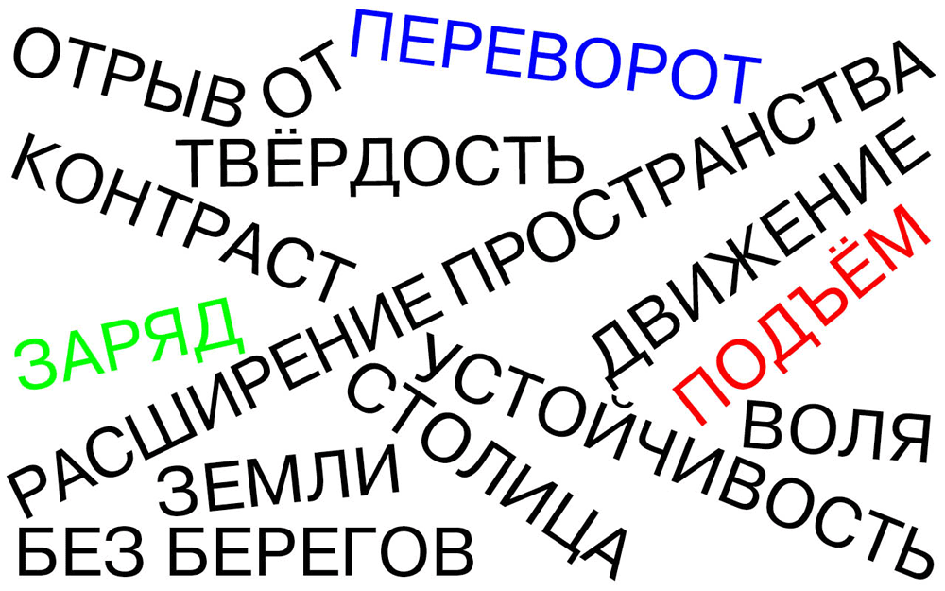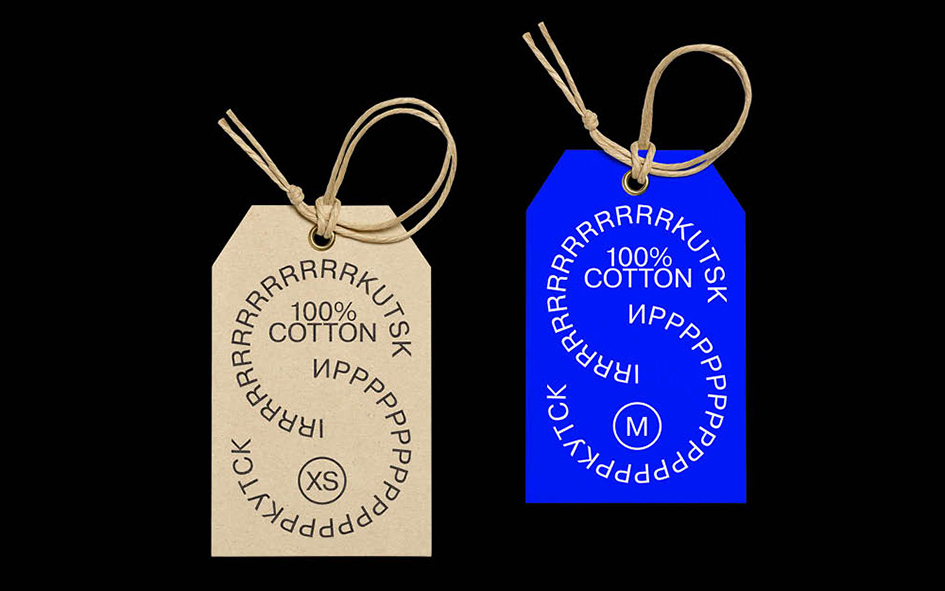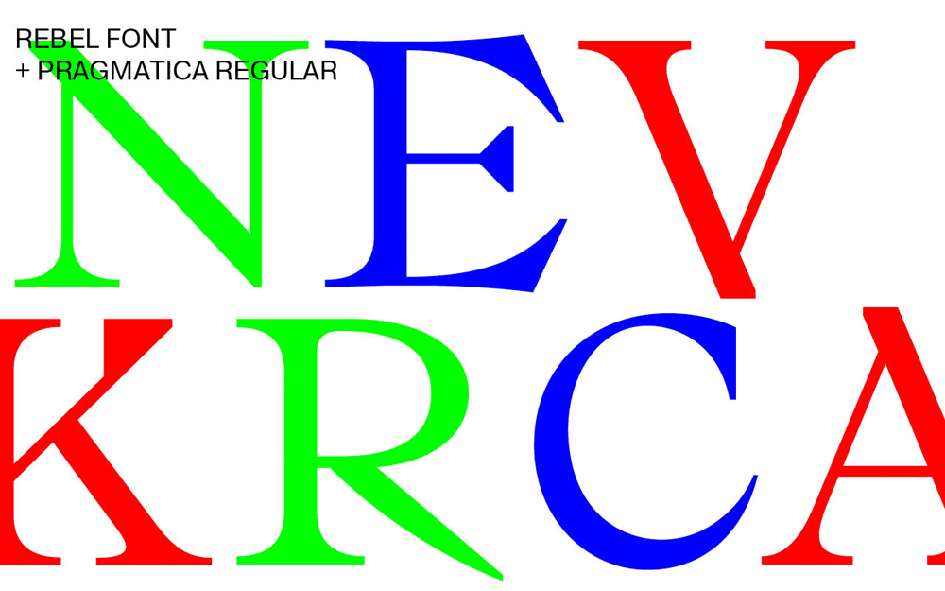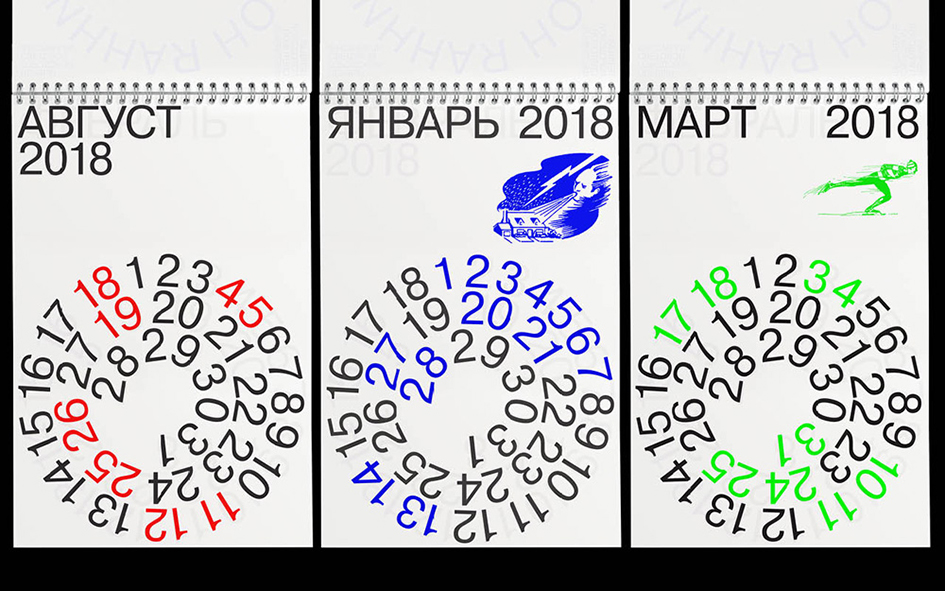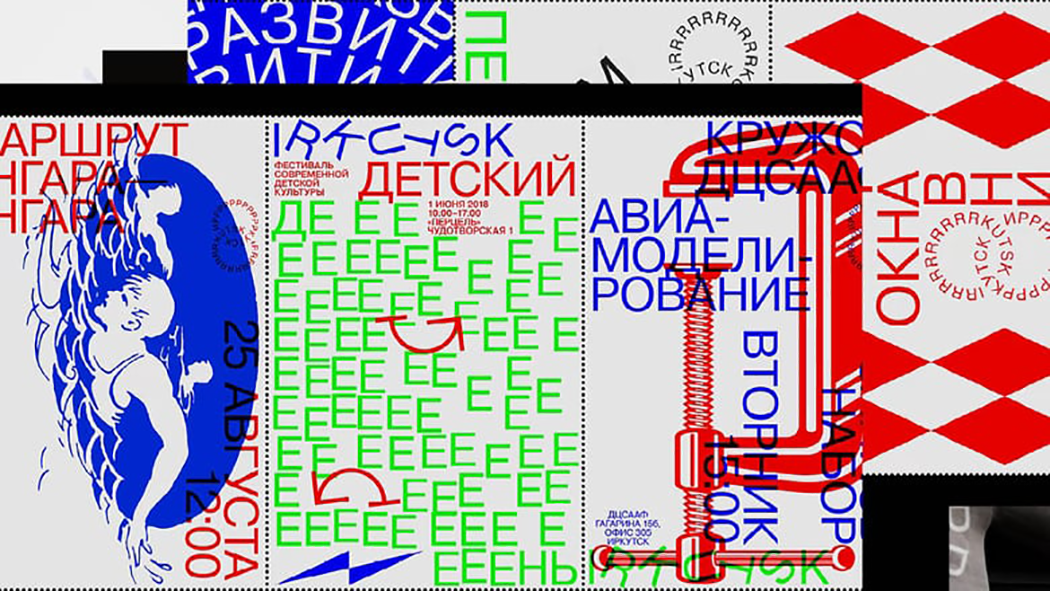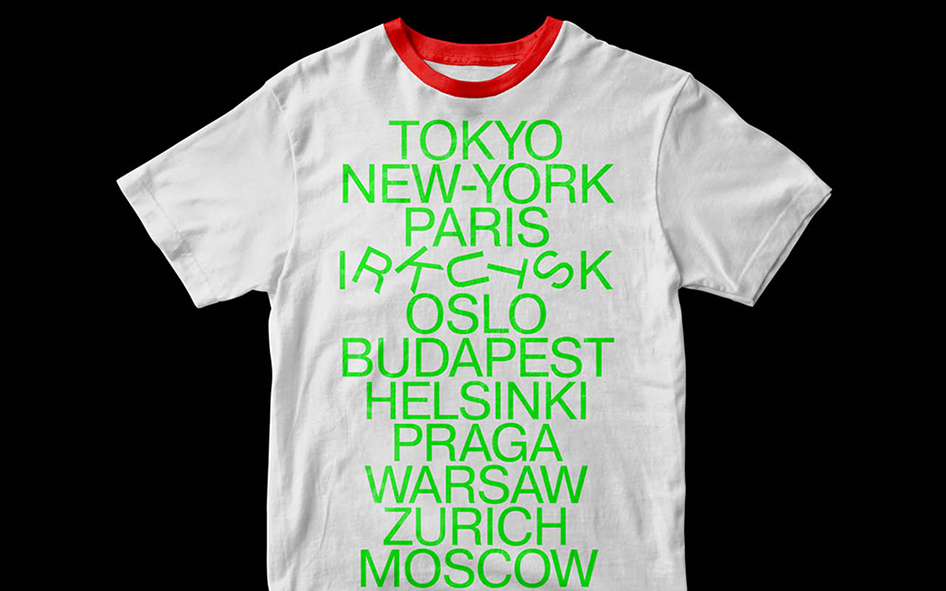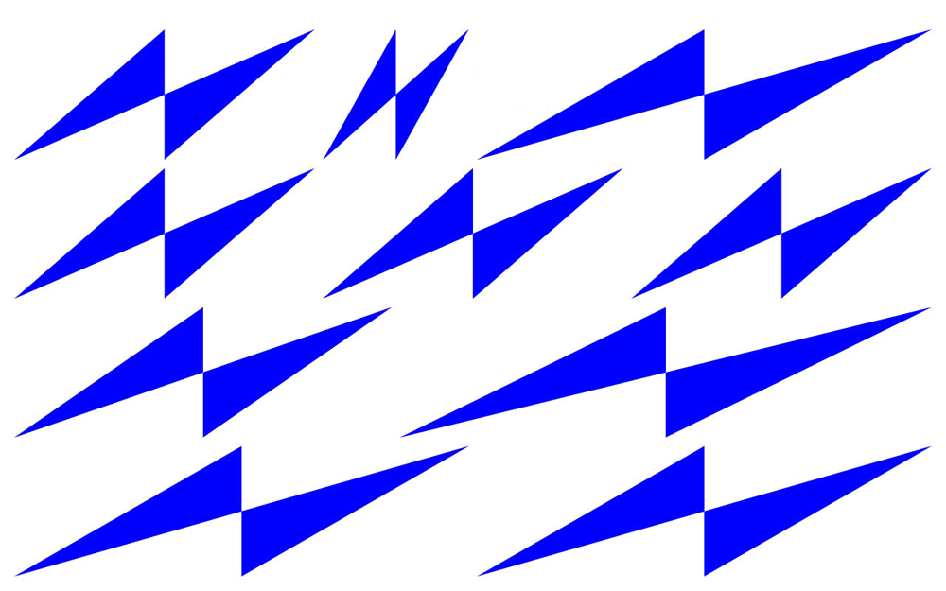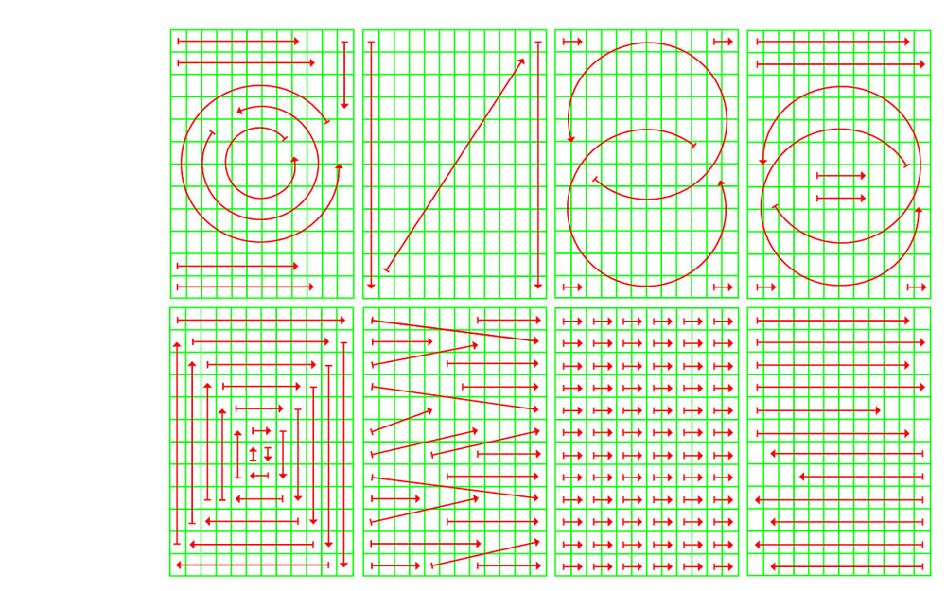
Plug into Irkutsk with INSTID’s electrifying visual branding of the Siberian city
Places have a feel about them. Companies, too” notes UK based Institute for Identity with aims “to nurture the intangibles” and make us understand them instantly and intuitively. “It's intricate work”. The company’s stunning visual branding for Irkutsk is one of the case studies that prove them right.
“Irkutsk’s visual style is spontaneous and liberating,” says Natasha Grand, co-founder of INSTID, the company behind the rebrand per Calvert Journal. “It aims to be powerful and emotionally charged enough to attract attention anywhere it’s applied and give people the energy to make the trip to Irkutsk. The idea behind the brand is one of rebellion, of pushing the boundaries and challenging yourself” she adds of the not so “cosy” or “comfortable visual style”. Something like that would not be true to Irkutsk notes Grand.
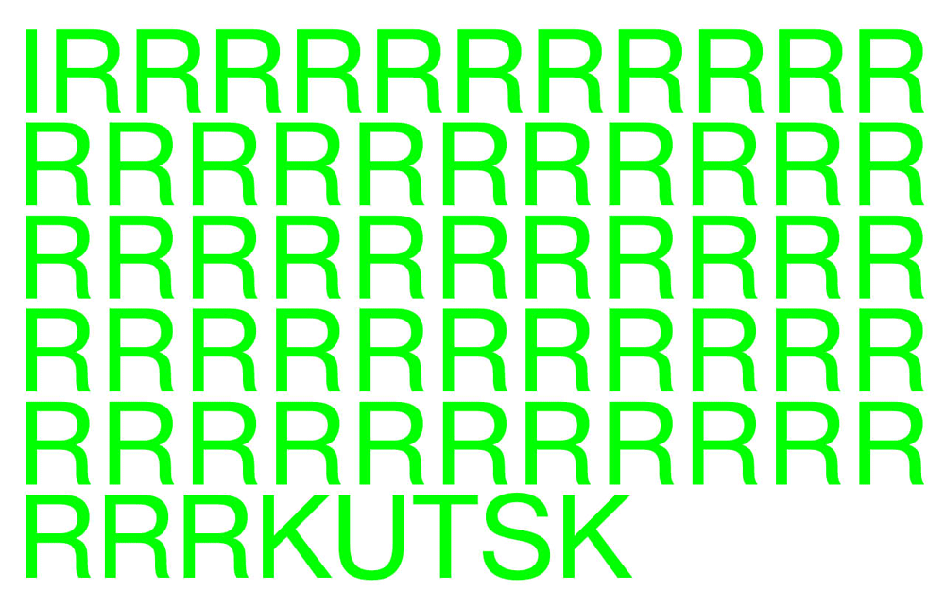
The brand core idea of Irkutsk’s visual brabind is: “Plug In!” per UnderConsideration. “Free, spontaneous, wilfull, protesting, active, contrasting, sharp and bright” the branding of the city expresses three core messages. “Electric charge” (tense proportions, contracts, and disproportions), “Lift” (abstract and absolute visual means olours, forms, and textures) and “Turn over” (minimal standards, deliberate breach of genre principles and rules).
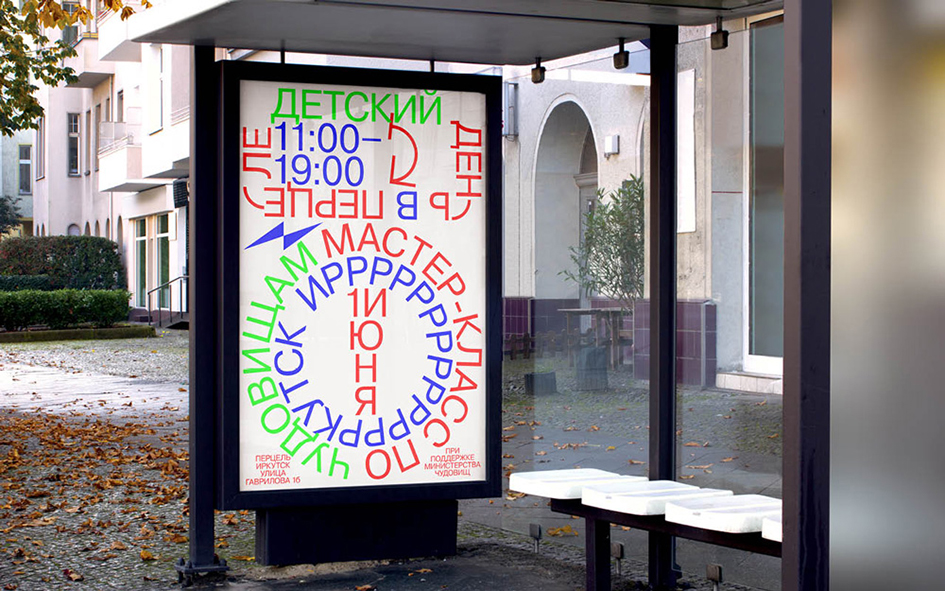
This “liberating” visual style of the city of Irkutsk takes typography to a whole new level of branding and re-introducing a city like Irkusk which is often overlooked by the Kremlin yet, this Siberian city couldn’t even be bothered. Irkutsk’s Sergei Levchenko remains one of the country’s few regional governors not endorsed by the Kremlin note the Guardian.